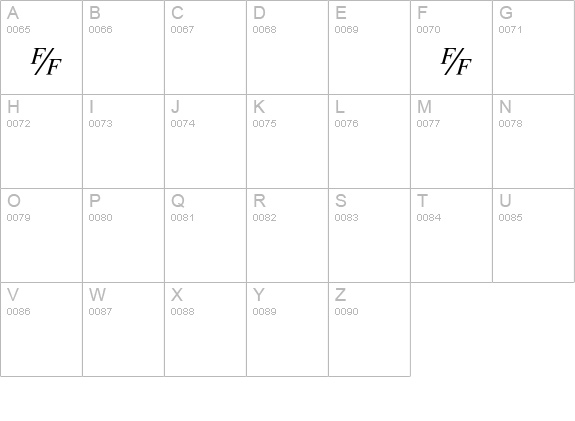
TmsFB-Italic Font Details
TmsFB-Italic is a distinctive, italic variant in the TmsFB typeface family \xE2\x80\x94 well suited to design and typography projects.
TmsFB-Italic font is a sleek and stylish typeface that exudes elegance and sophistication. Designed with a touch of modernity, this font is perfect for adding a touch of class to any project. With its beautifully crafted letterforms and graceful curves, TmsFB-Italic font is sure to capture attention and leave a lasting impression. Whether you're designing a logo, creating a website, or designing a print advertisement, this font will bring a touch of professionalism and refined style to your work. One of the best things about TmsFB-Italic font is that it is completely free. Yes, you read that right! This incredible font is freely available to download at FontsMarket.com. So, not only will you be able to enhance your designs with this stunning typeface, but you can also do it without spending a dime. Download TmsFB-Italic font today and elevate your design projects to a whole new level. With its free availability and remarkable design, this font is a must-have for any designer or creative professional. Don't miss out on the opportunity to make your work shine with TmsFB-Italic font.